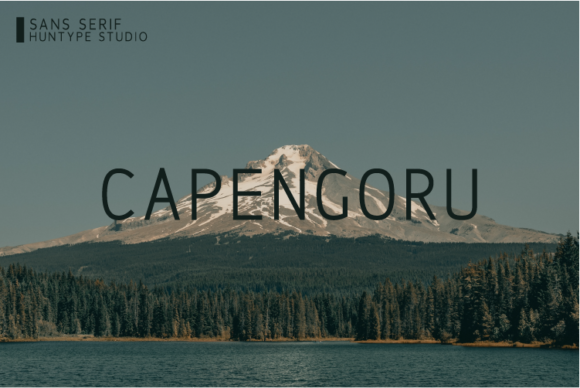
The Elusive Font: My Journey with Capengoru
I still remember the frustration of working on a project, hours spent searching for the perfect font, only to come up empty-handed. My client wanted something modern, elegant, and versatile – a font that would elevate their brand without overpowering it. That’s when I stumbled upon Capengoru, a fancy, contemporary sans serif font that has since become a staple in my design toolkit.
A First Impression: Capengoru Review
So, what makes Capengoru special? Let’s dive into the good stuff and, of course, a few quirks I’ve encountered.
What I Love About Capengoru
- ✨ Exquisite and Subtle: Capengoru strikes the perfect balance between elegance and subtlety, making it suitable for a wide range of design projects.
- ✅ Maximum Versatility: Whether you’re working on a logo, a brochure, or a website, Capengoru adapts seamlessly to different contexts.
- 💡 Contemporary Feel: The font’s modern sans serif design gives it a fresh and current look that’s hard to achieve with more traditional fonts.
While Capengoru is an excellent font, there are a few things to keep in mind:
- 🤔 Limited Serif Options: As a sans serif font, Capengoru might not be the best choice if you’re looking for a serif font to pair with it.
- ⚠️ Glyph Support: Some users have reported issues with certain glyphs not displaying correctly in older software versions.
The Story Behind Capengoru
While the origins of Capengoru might be shrouded in mystery, it’s clear that the font was designed with the modern designer in mind. The creator aimed to craft a font that was both elegant and versatile, capable of elevating any design project.
| Font Name | Capengoru Font |
| Author | Huntype |
Q: What type of projects is Capengoru best suited for?
A: Capengoru is incredibly versatile and can be used for a wide range of projects, from branding and logos to websites and marketing materials.
Q: Does Capengoru support OpenType features?
A: Yes, Capengoru supports OpenType features, including ligatures and stylistic alternates, which can add a unique touch to your designs.
Q: Is Capengoru suitable for body text?
A: While Capengoru is elegant and highly legible, it might be better suited for headings and titles. For body text, consider a font with more traditional proportions.